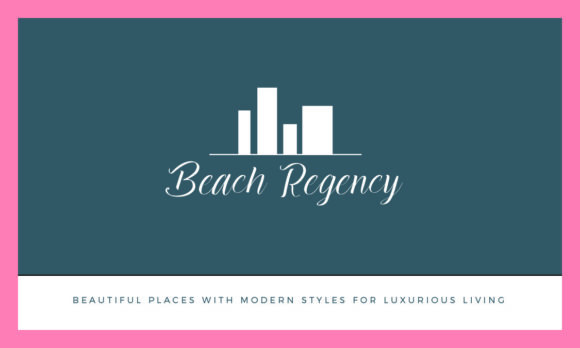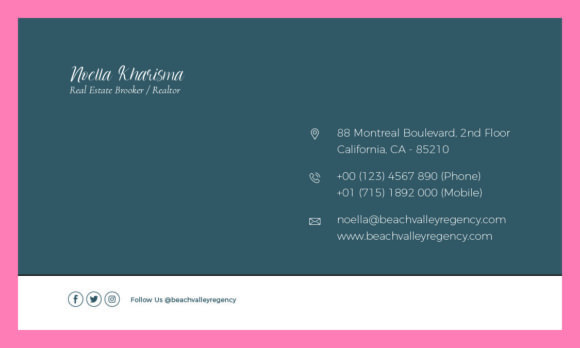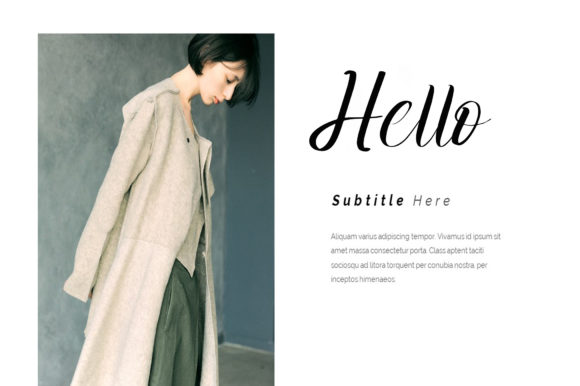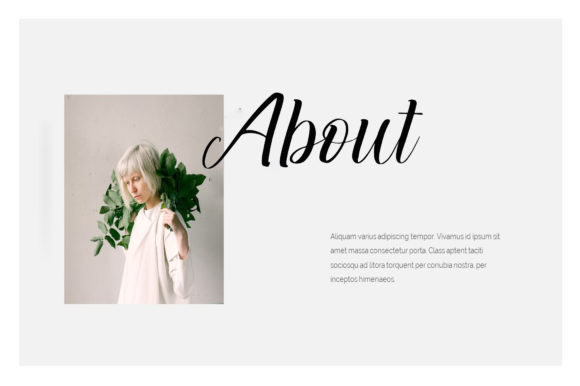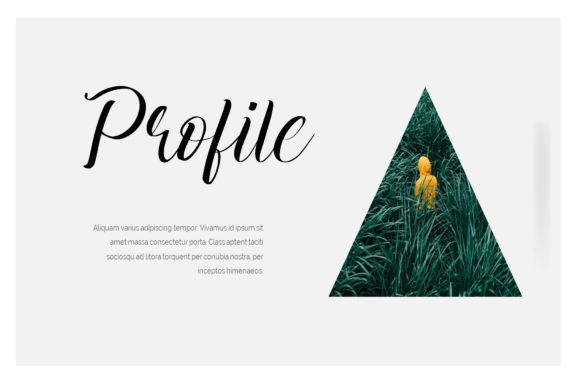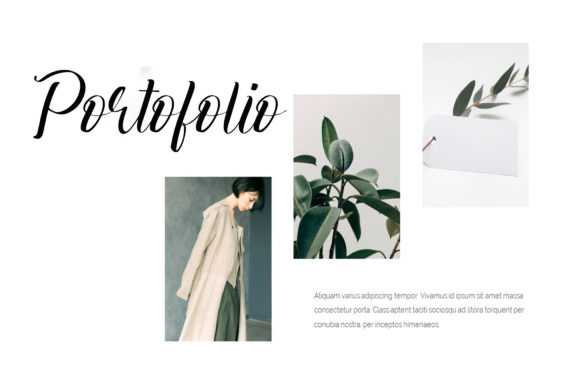
Introduction to Julians Signature Font
Julians Signature is a flowing handwritten font, described by an elegant touch, perfect for your favorite projects.
Key Features of Julians Signature Font
Why Choose Julians Signature Font?
Julians Signature Font offers exceptional quality and versatility, making it a valuable addition to your design toolkit. Whether you’re creating for personal projects or commercial use, Julians Signature Font delivers professional results.